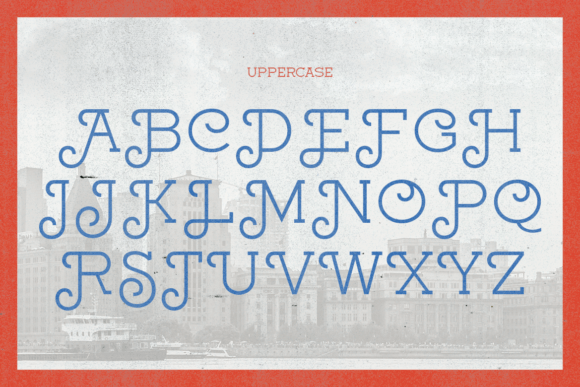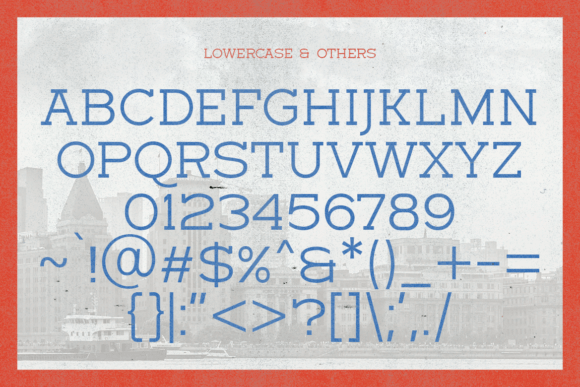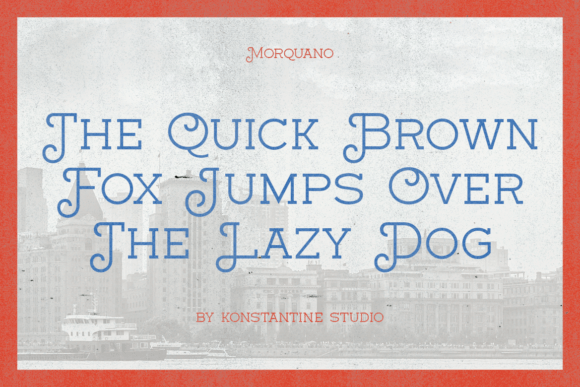
Introduction to Morquano Font
Morquano is a casual serif vintage font.
Inspired by the terms of smart-casual in the fashion genre, but implemented in a vintage way Perfectly fit for a logo, branding, signage, decor, books, cover, badges and emblems, clothing, apparel, merchandise, movie title, serials, and many more.